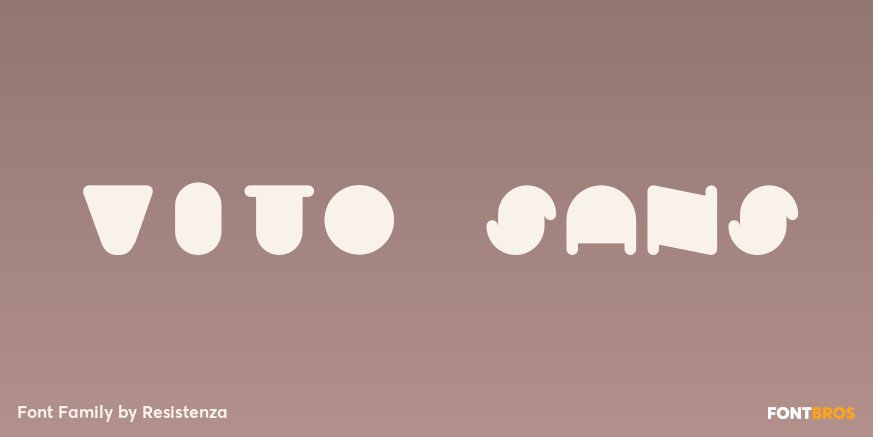
Vito Sans
About Vito Sans
Vito Sans was born during the summer of 2010, in a little town called San Vito lo Capo in Sicily. Soft and rounded, with a flatter look – this uppercase monospaced font is perfect for eye-catching big texts for anything from concert, event, and party…